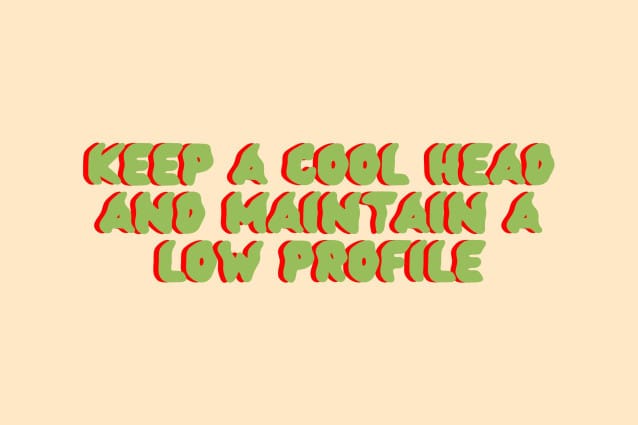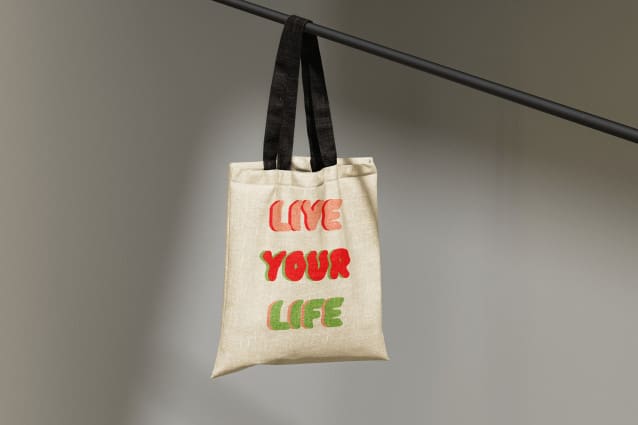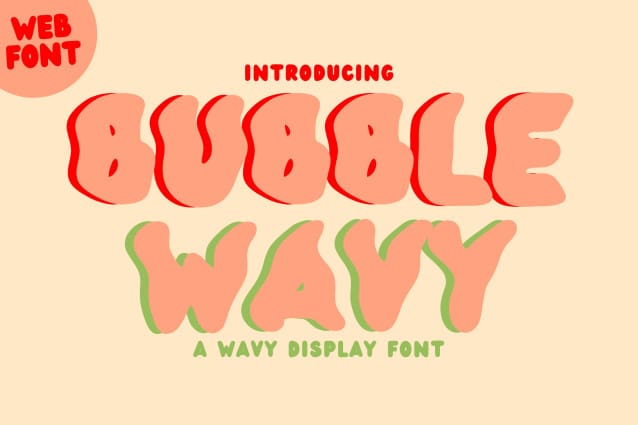
Bubble Wavy Font
Bubble Wavy Font a fun and whimsical display font that brings a lively and dynamic touch to your designs. Perfect for posters, branding, social media, and creative projects, this font features a bubbly and wavy style that exudes playfulness and creativity. Whether you’re designing for digital or print, Bubble Wavy adds a unique and energetic flair to your work.